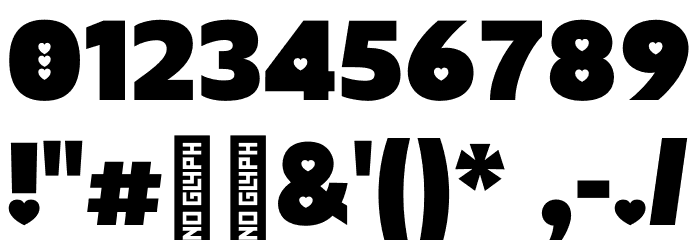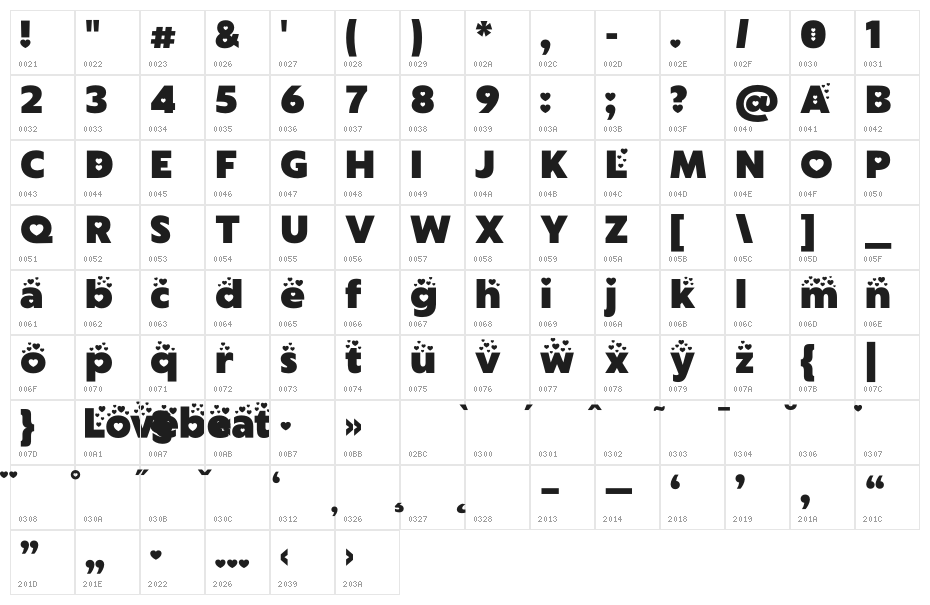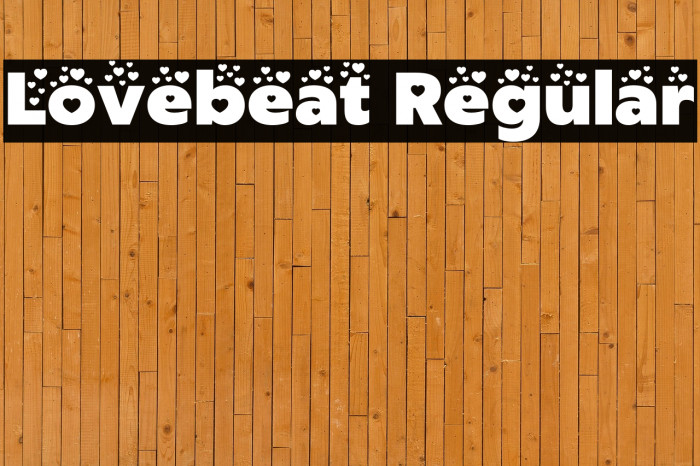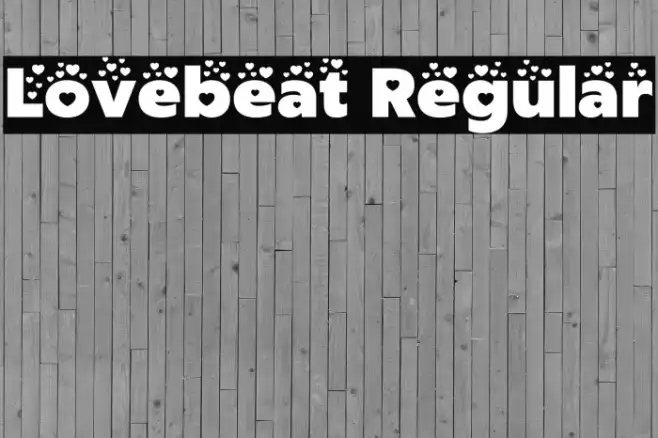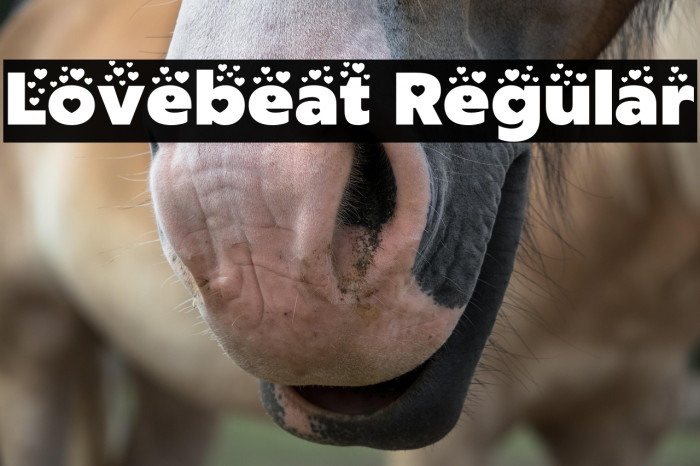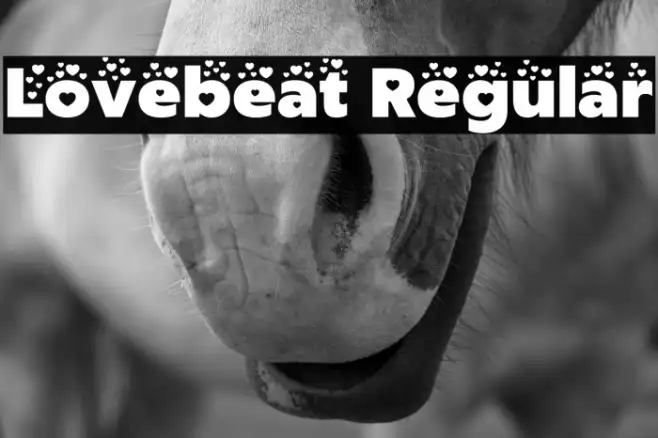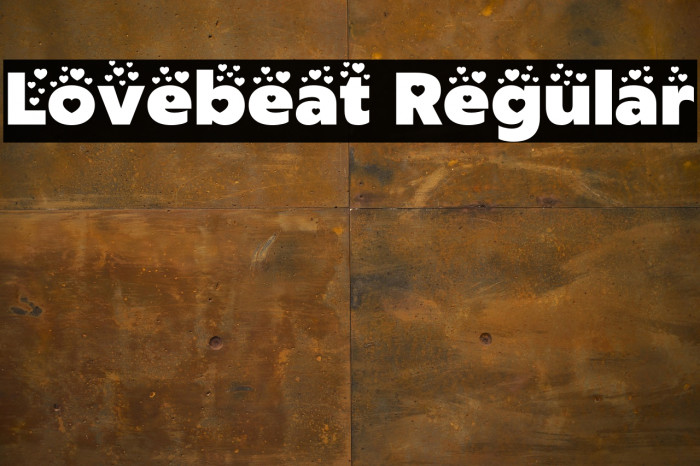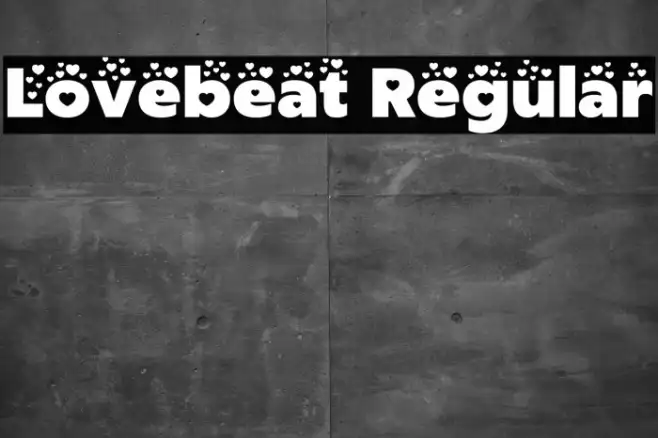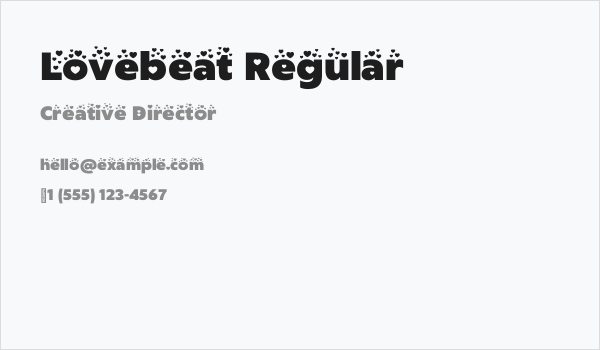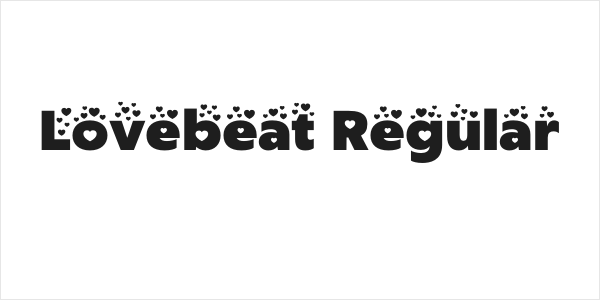
This playful and decorative typeface features bold, rounded characters with heart-shaped cutouts, adding a whimsical and romantic touch. The uppercase and lowercase letters maintain a consistent weight, creating a harmonious appearance. The numbers follow the same playful style, ensuring uniformity across all characters. The font's unique personality is further emphasized by its special characters, which include symbols like the exclamation mark and ampersand, each adorned with heart motifs. This font is perfect for projects that require a fun, loving, and eye-catching design.
| Proposed Projects | Ideal for Valentine's Day cards, wedding invitations, playful branding, and children's book covers. |